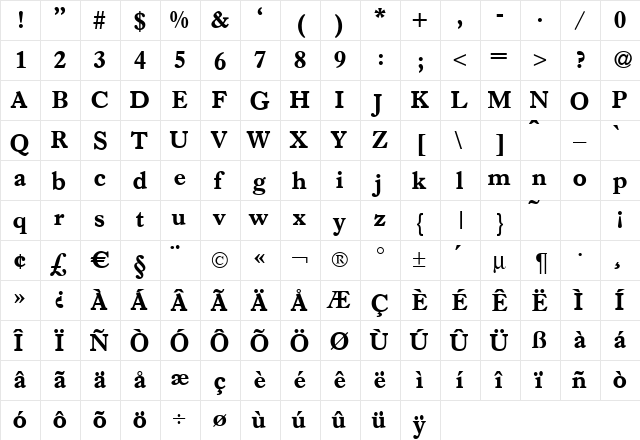
I771-Roman Bold
Design Context for I771-Roman Typeface
I771-Roman offers clean, dependable letterforms without strong stylistic allegiance, making it a practical choice for designers who need flexibility. The heavy weight commands attention and anchors typographic hierarchies.